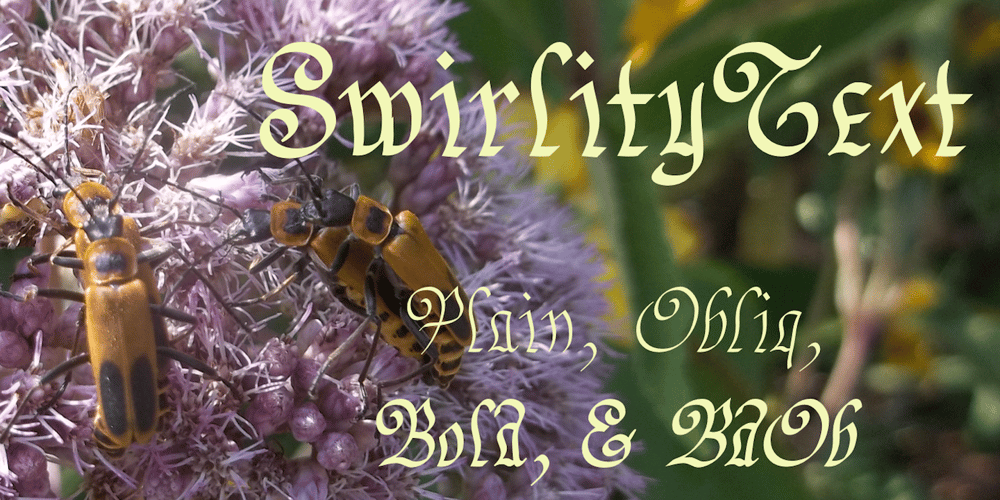
SwirlityText Font Family was designed by Robert Schenk and published by Ingrimayne Type. SwirlityText contains 4 styles and family package options. SwirlityText is a fussy, over-the-top calligraphic typeface with lots of curves and wiggles. It comes in two weights, each with an oblique style.